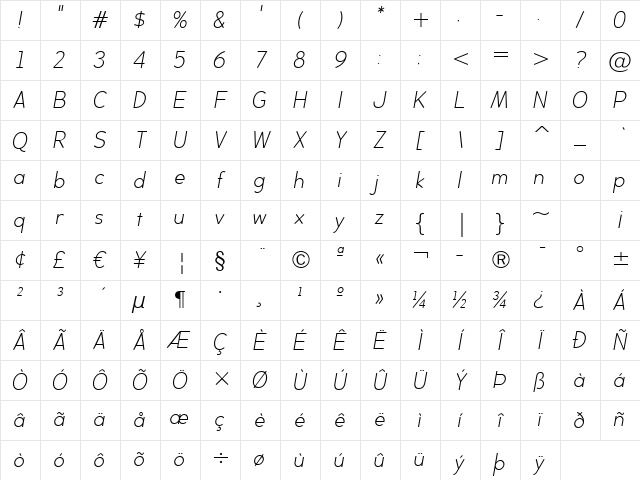
BacktalkSans BTN Lt Oblique Free Font
BacktalkSans BTN Lt Oblique
Design Context for BacktalkSans BTN Lt
BacktalkSans BTN Lt is a composed and adaptable typeface that performs quietly and consistently across a wide range of design contexts. The slanted form adds forward momentum and visual energy. Its slender proportions lend an understated elegance to any composition.
Pro Tip: Use BacktalkSans BTN Lt for emphasis, pull quotes, and subheadings where its slanted energy can add rhythm to the layout.